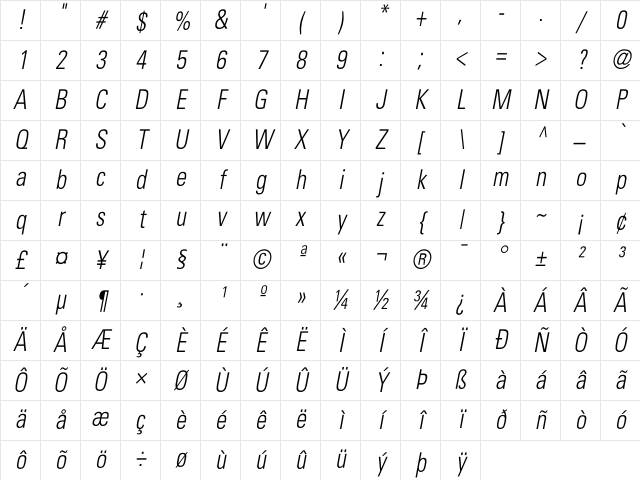
Beetham CondensedLightOblique
Style: CondensedLightOblique
Beetham Family
Beetham CondensedLightOblique
Design Context for Beetham
Beetham is a composed and adaptable typeface that performs quietly and consistently across a wide range of design contexts. The slanted form adds forward momentum and visual energy. Its slender proportions lend an understated elegance to any composition. Its narrow stance lets it pack a punch even in space-constrained designs.
Pro Tip: Use Beetham for emphasis, pull quotes, and subheadings where its slanted energy can add rhythm to the layout.